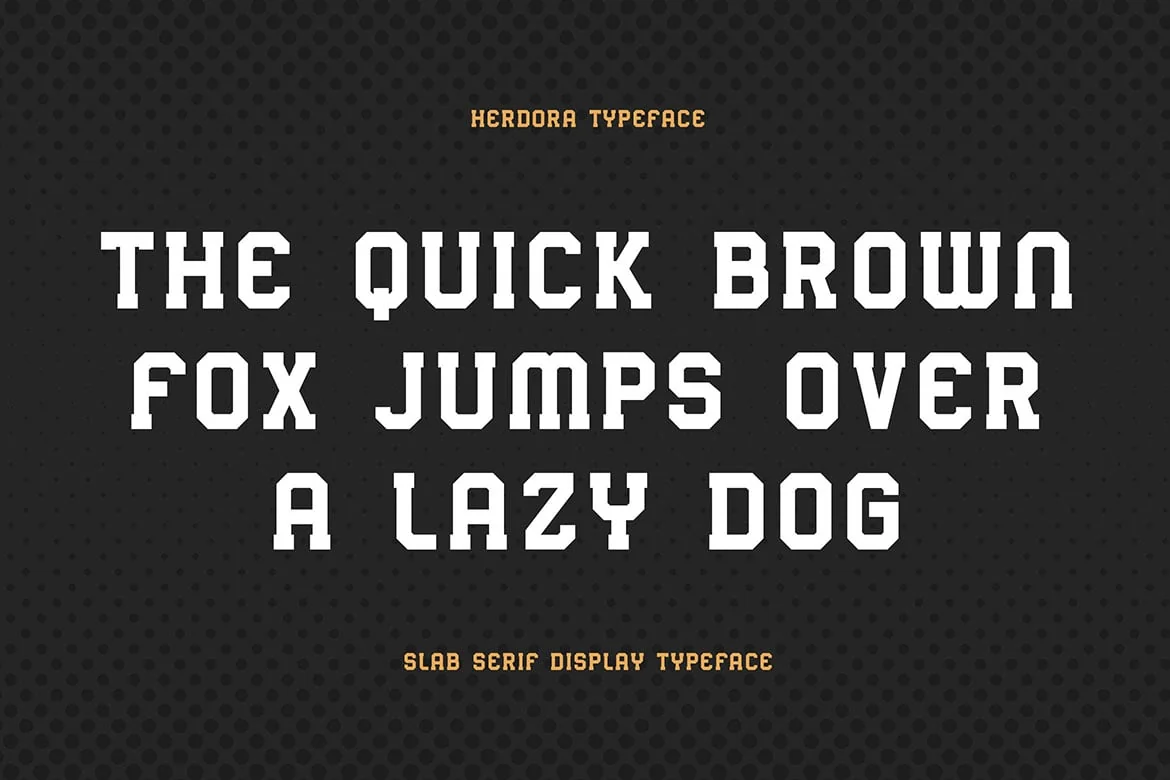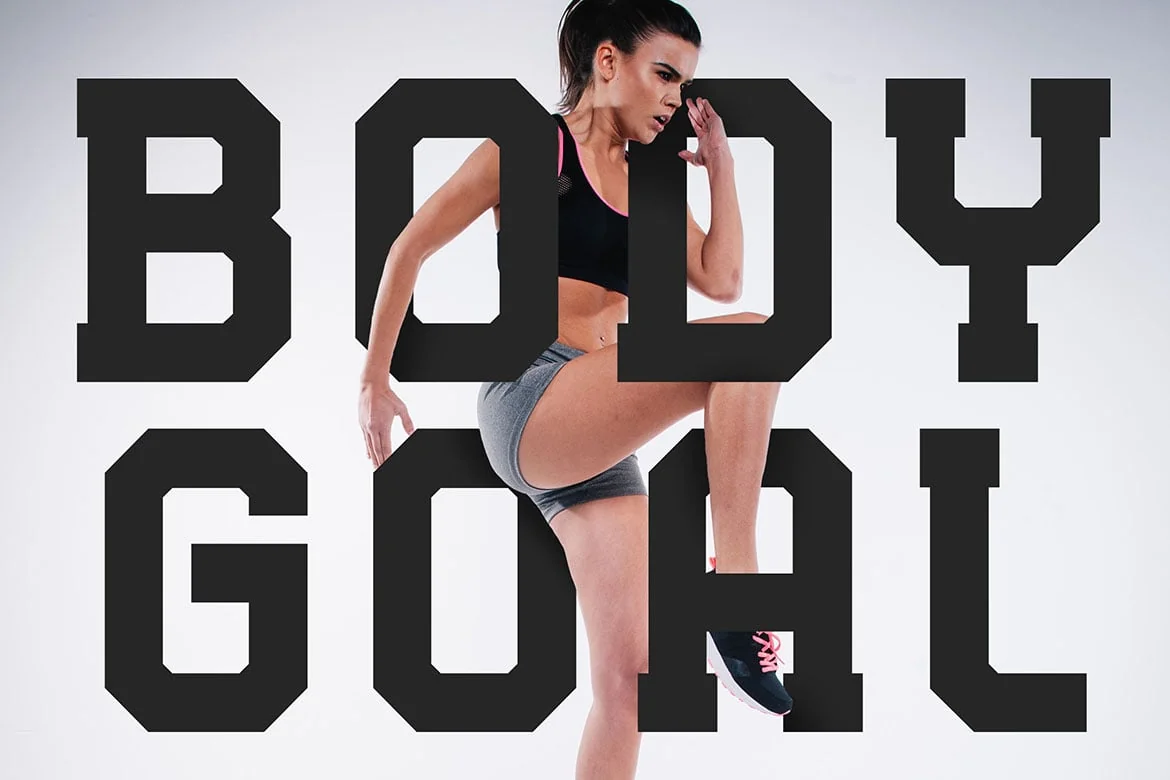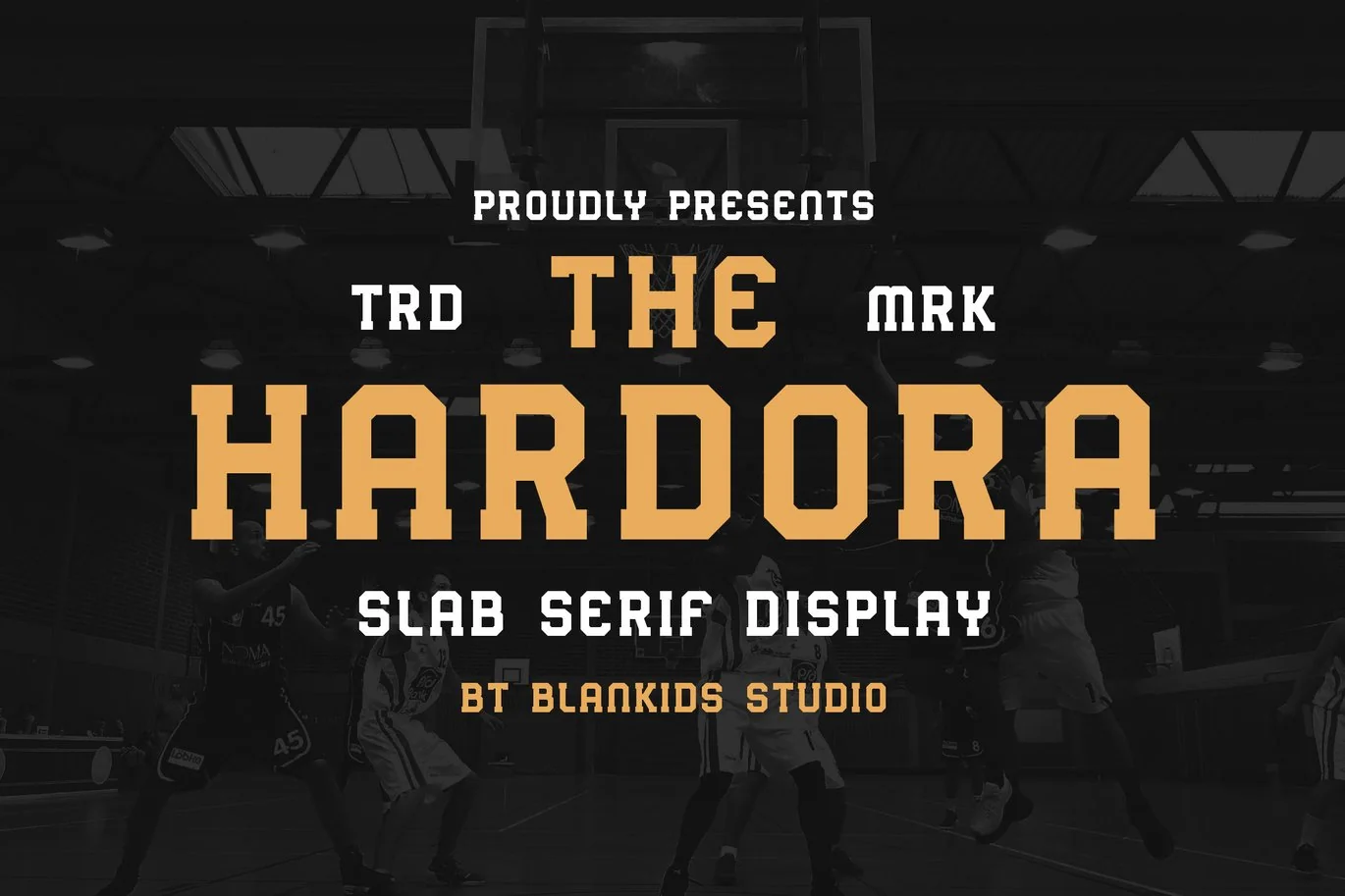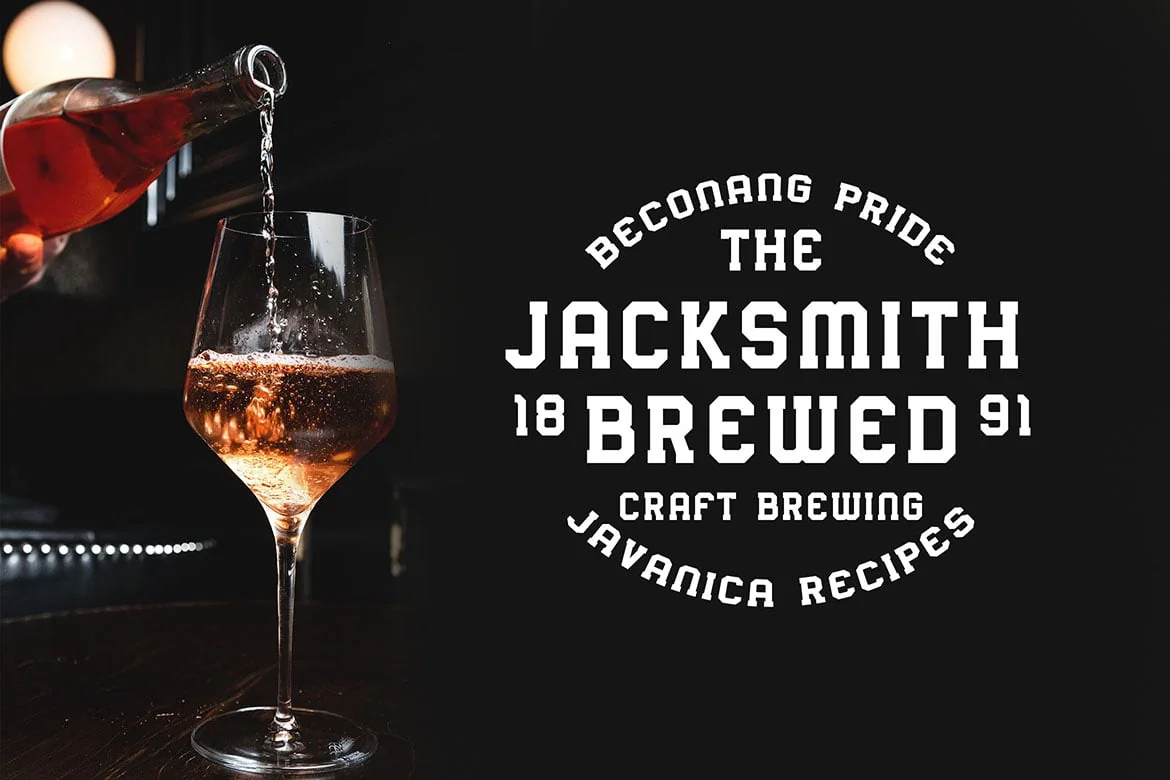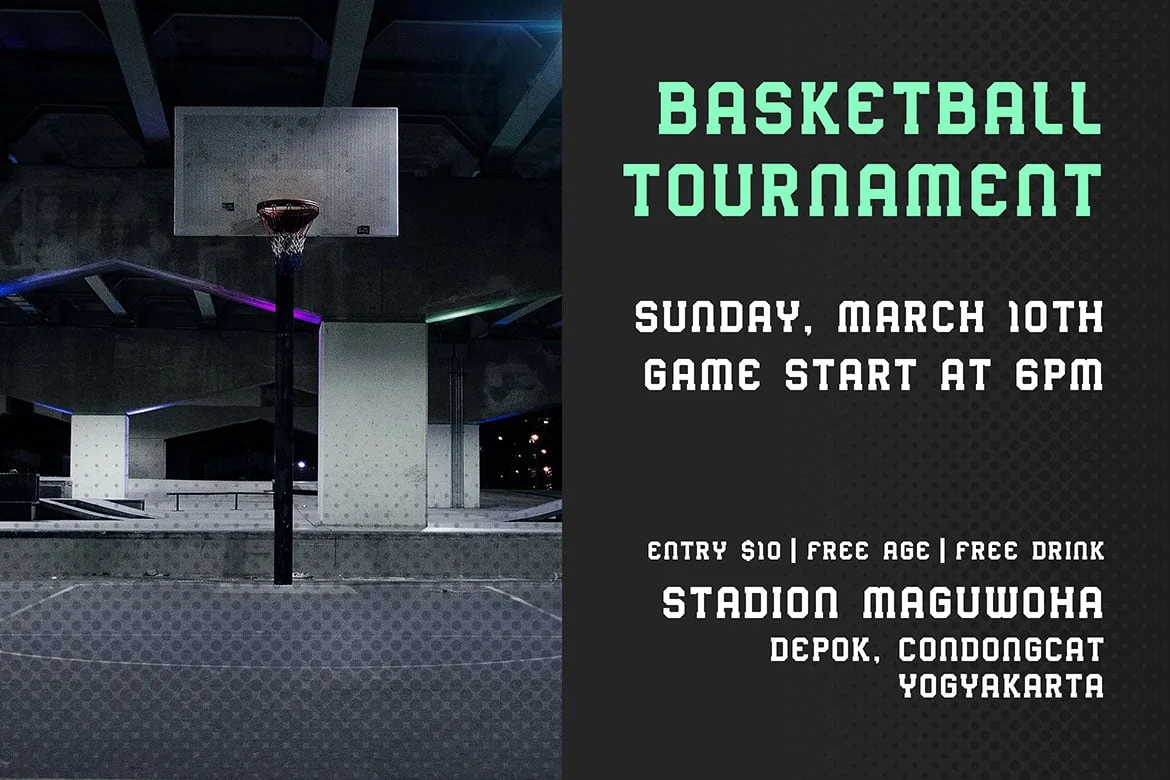
Hardora – Slab Serif Display Typeface
Introducing of our new product the name is Hardora Slab Serif Display Typeface. Hardora good for logotype, label, badge, headline, signature, packaging and any more.
MULTILINGUAL ACCENT :
- ŽžŠŒšŸÀÁÂÃÄÅÆÇÈÉÊËÌÍÎÏÐÑÒÓÔÕÖØÙÚÛÜÝßàáâãäåæçèéêëìíîïñòóôõöøùúûüýÿ